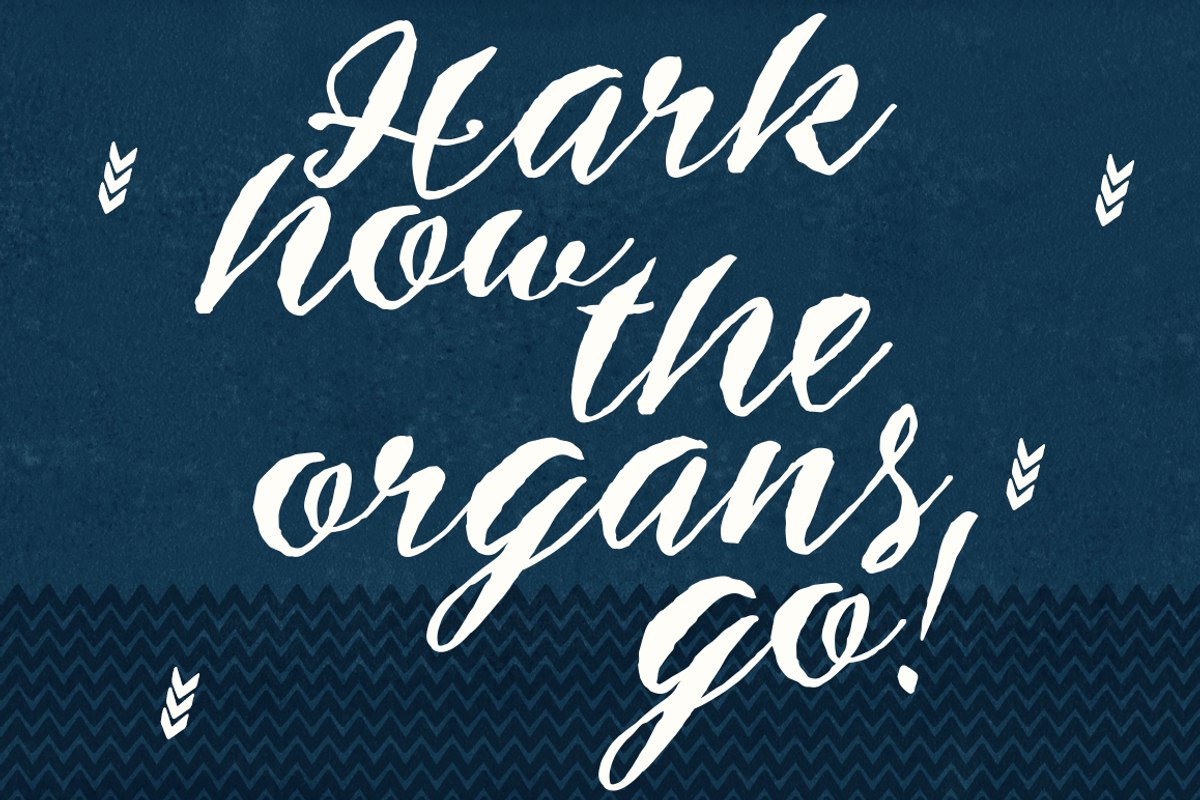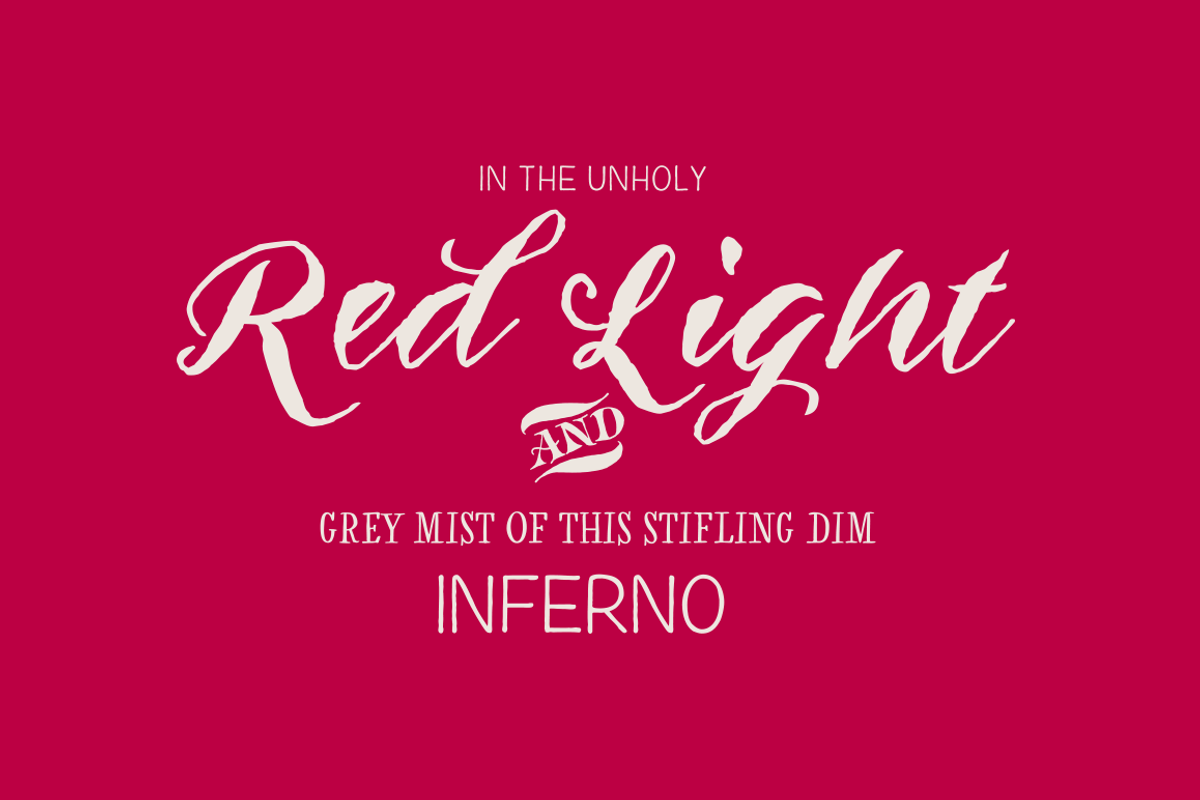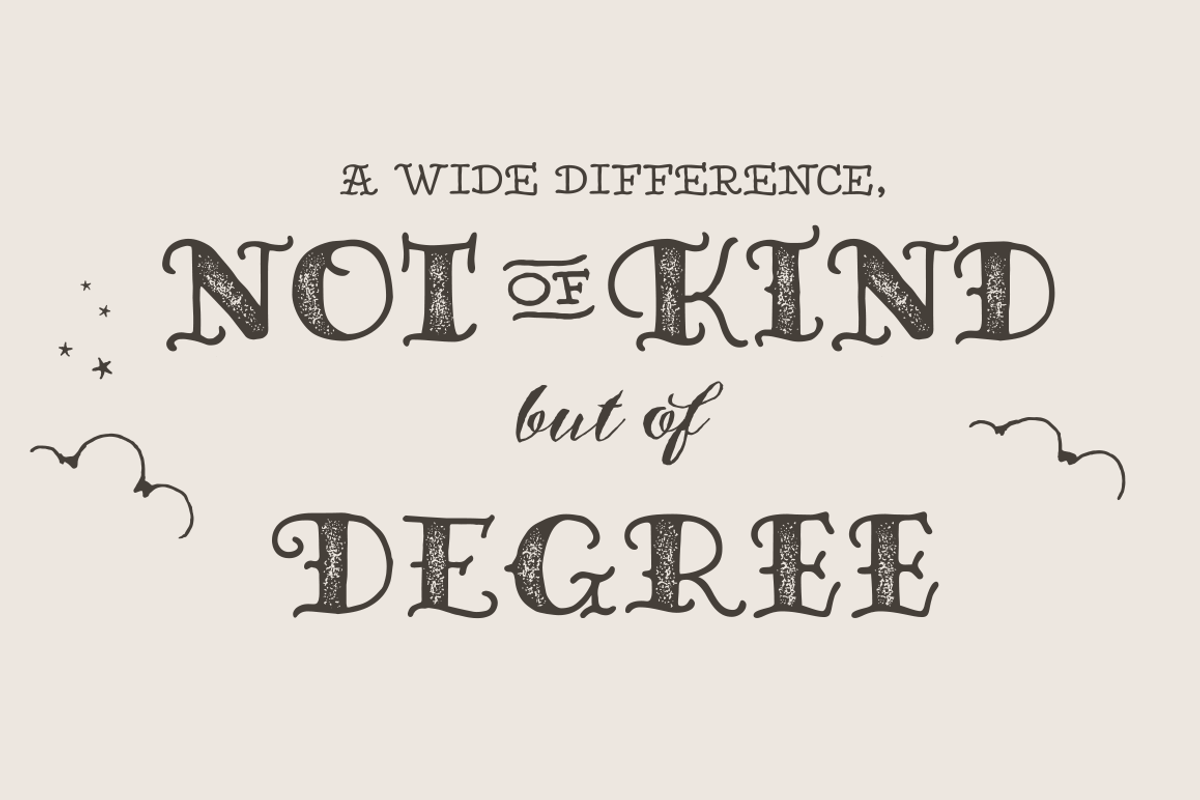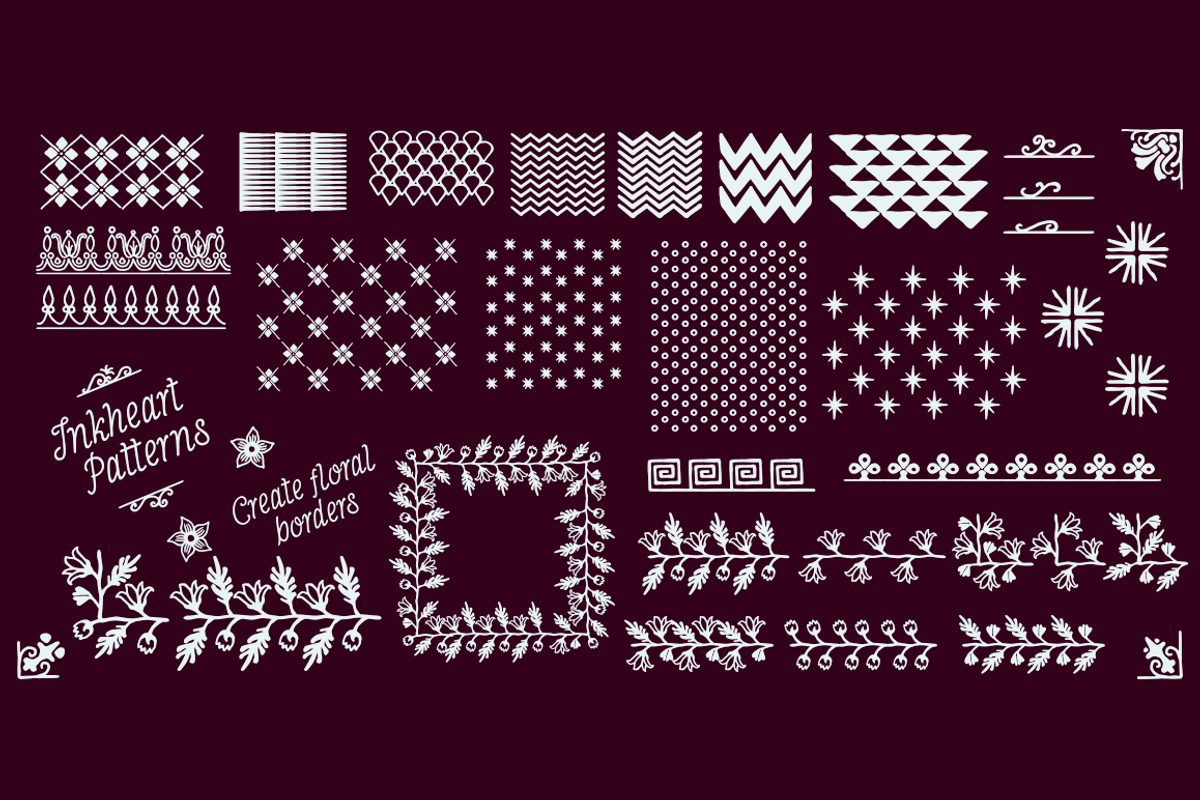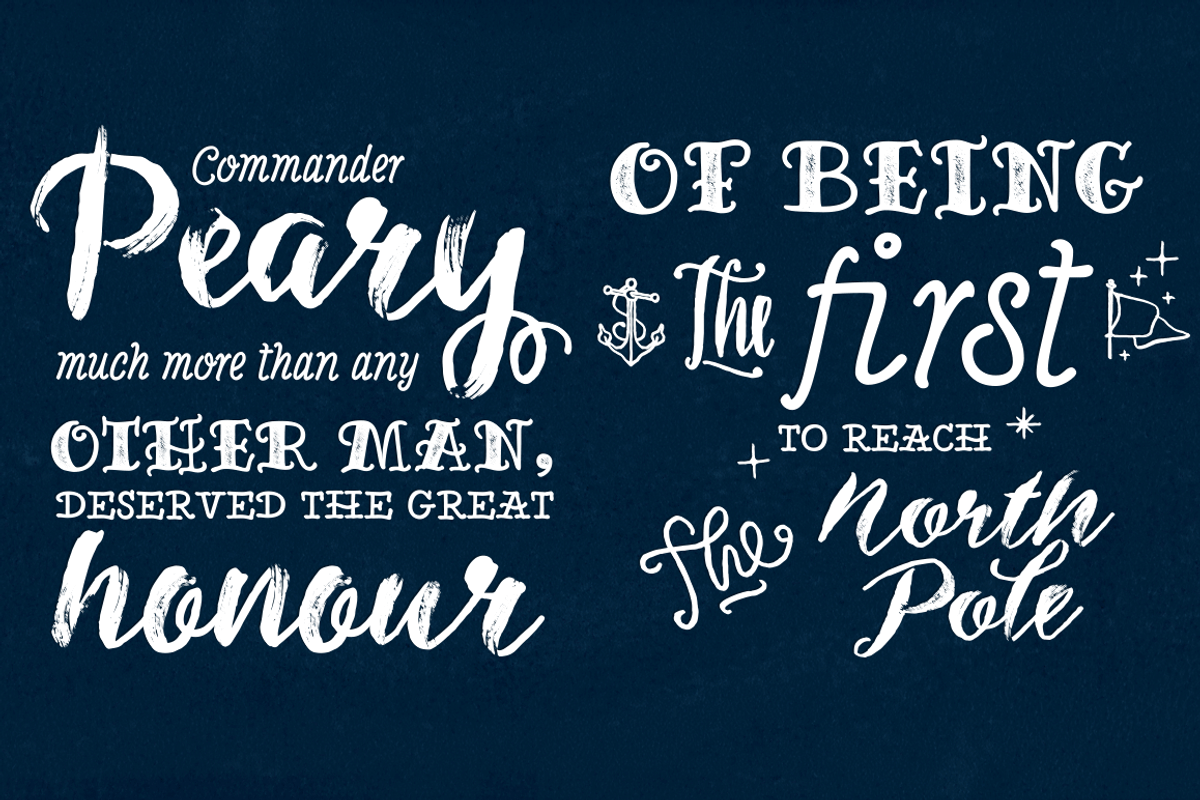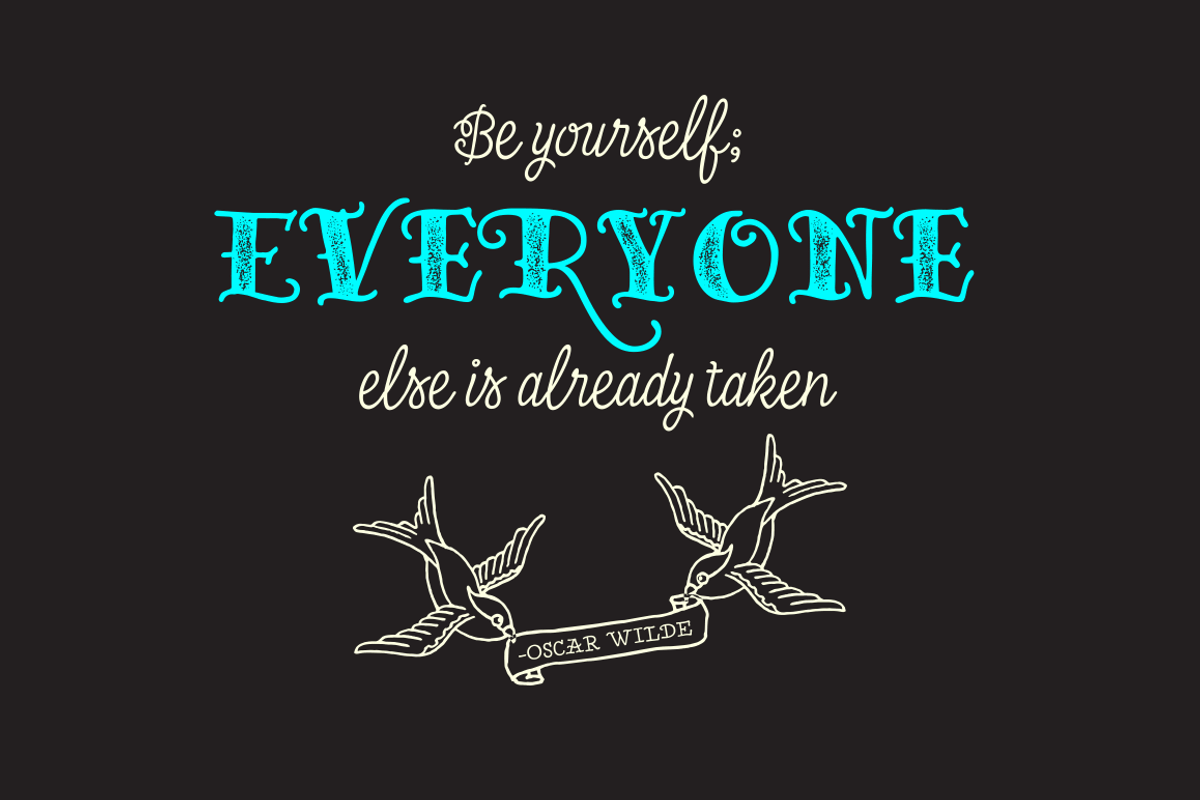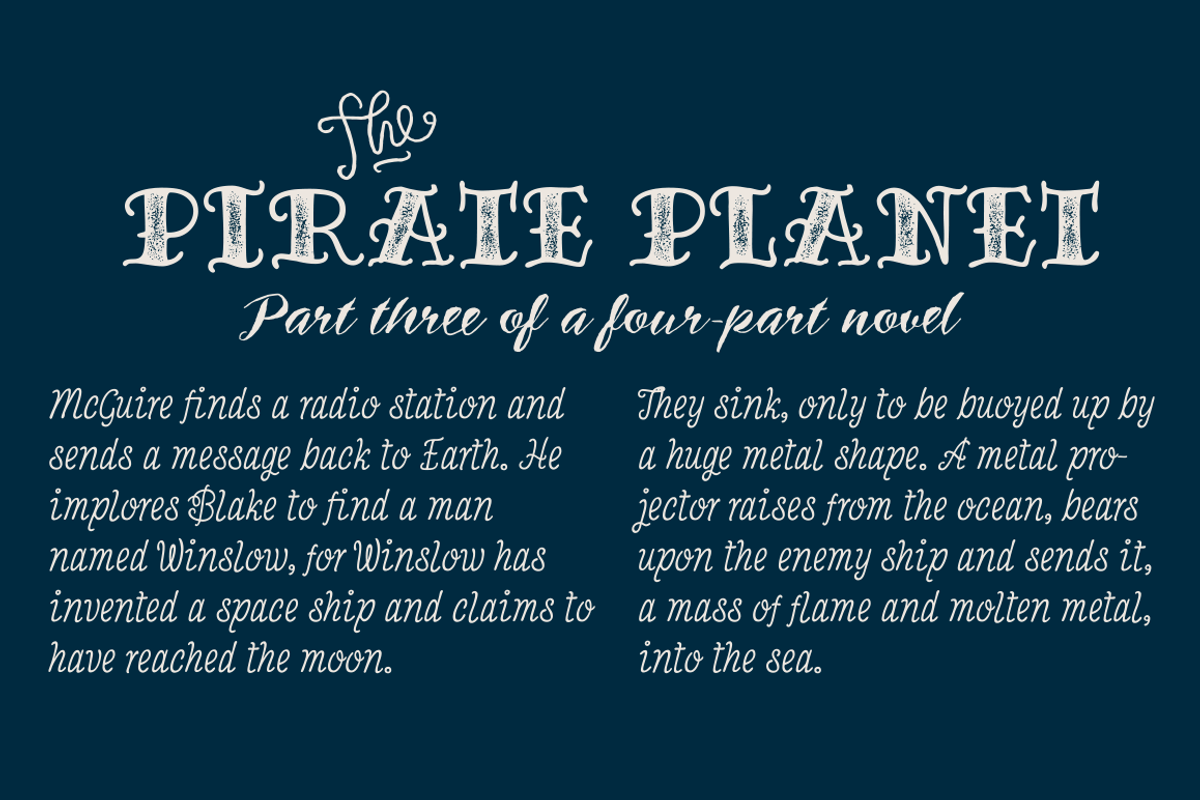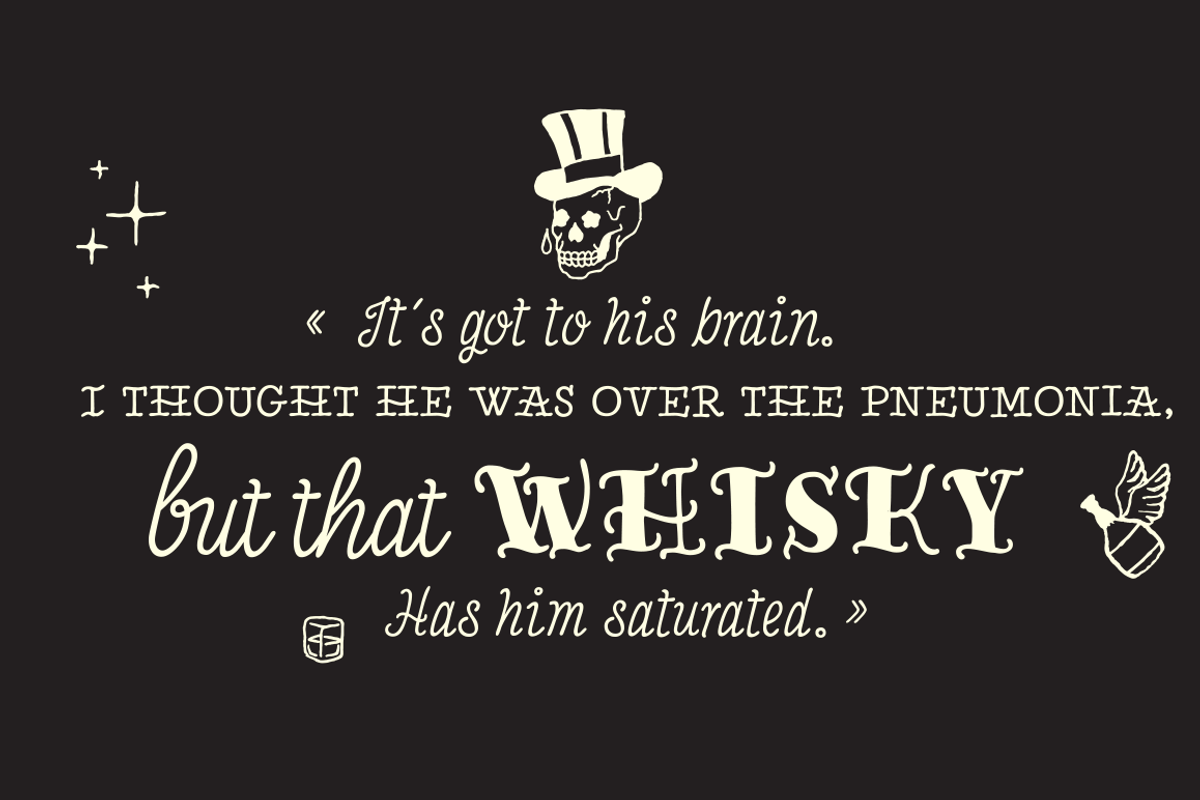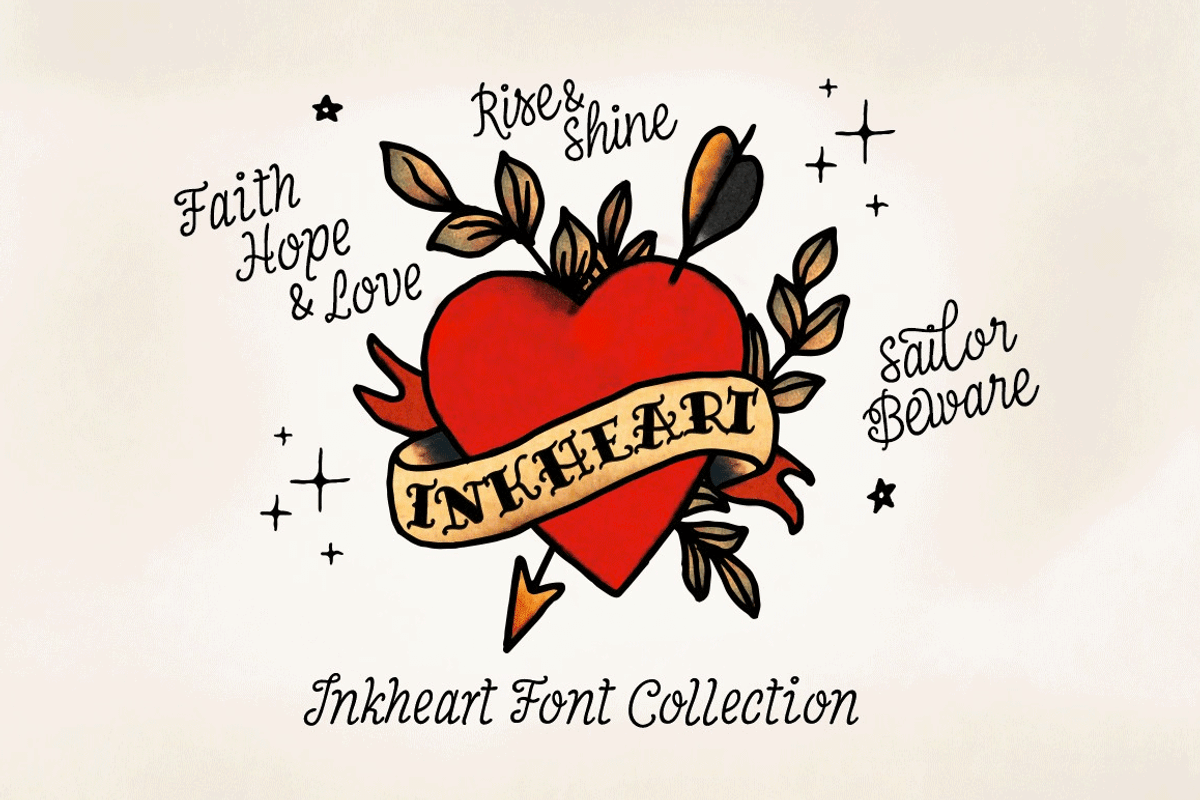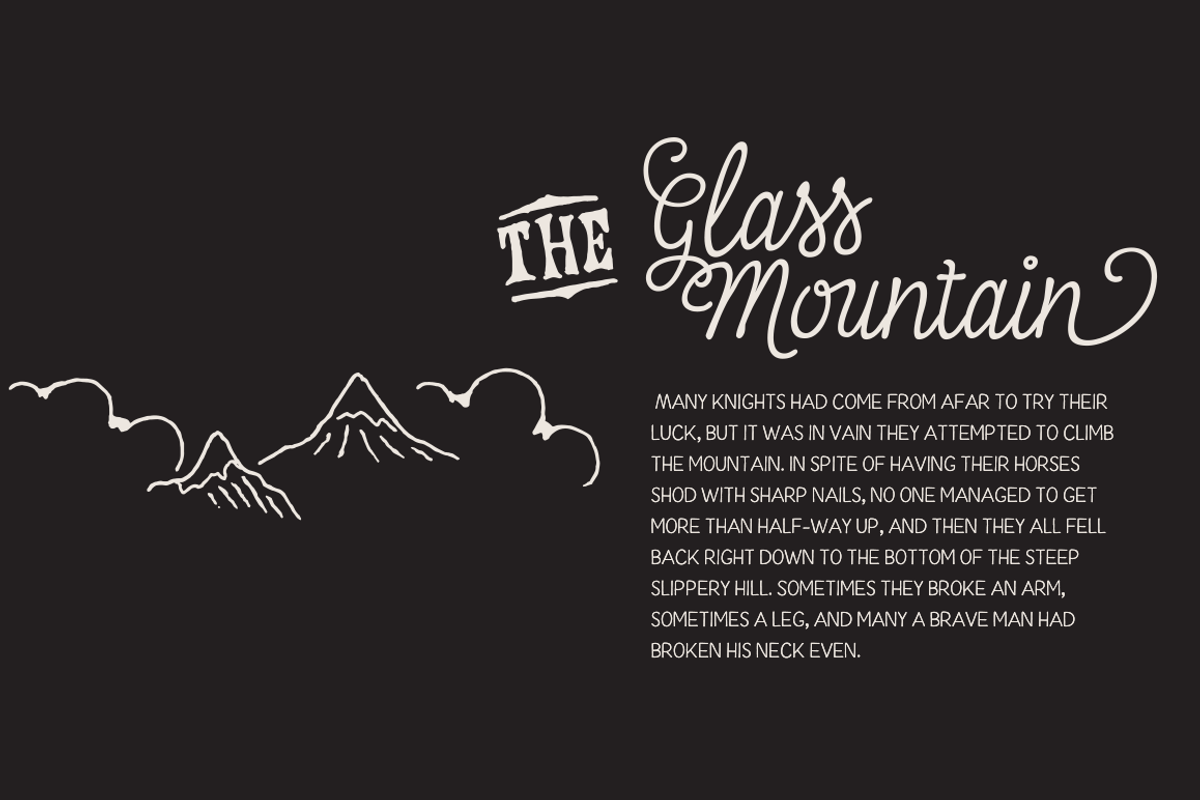
Inkheart Font Collection!
Inkheart is a handmade font family of 22 fonts designed to play together. Inkheart family covers a wide range of different styles such as script, brush, sans and many other display styles - drawn in the same size so they naturally fit together. Inkheart also has Catchwords, Patterns and Ornaments that play perfectly with the letter-fonts.
Inkheart family is a great tool for designing advertising, branding, posters, packaging and anything else with a coherent visual style. Each font goes a long way alone but together they’ll rock!
Inkheart family is also packed with OpenType features such as Automatic Ligatures, Swash, Stylistic and Titling Alternates. Go wild with Inkeart!